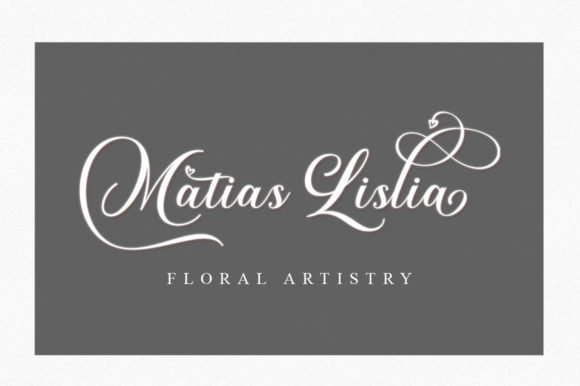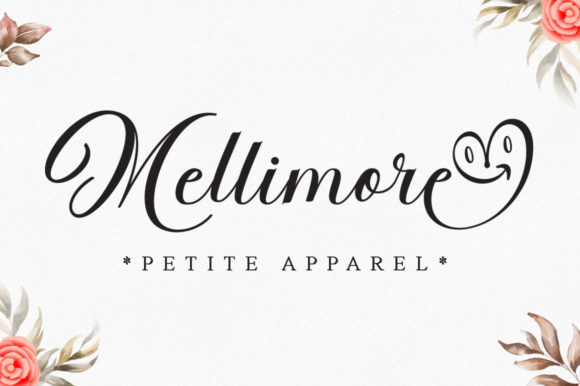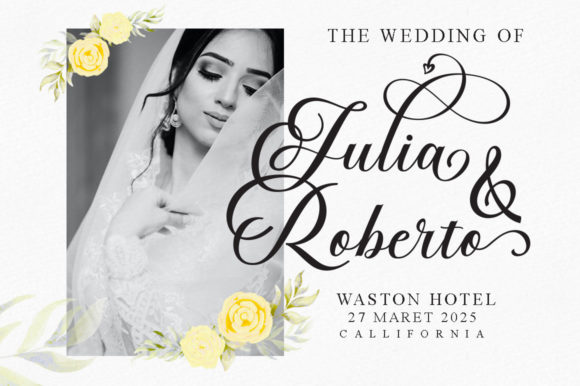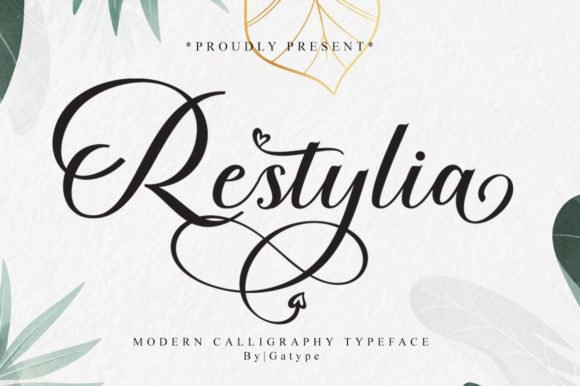
Introduction to Restylia Font
Restylia is a stylish and dainty script font.
It is suitable for any projects such as: logos, branding projects, label, photography, watermark, special events, and all your other lovely projects that need a beautiful script taste .